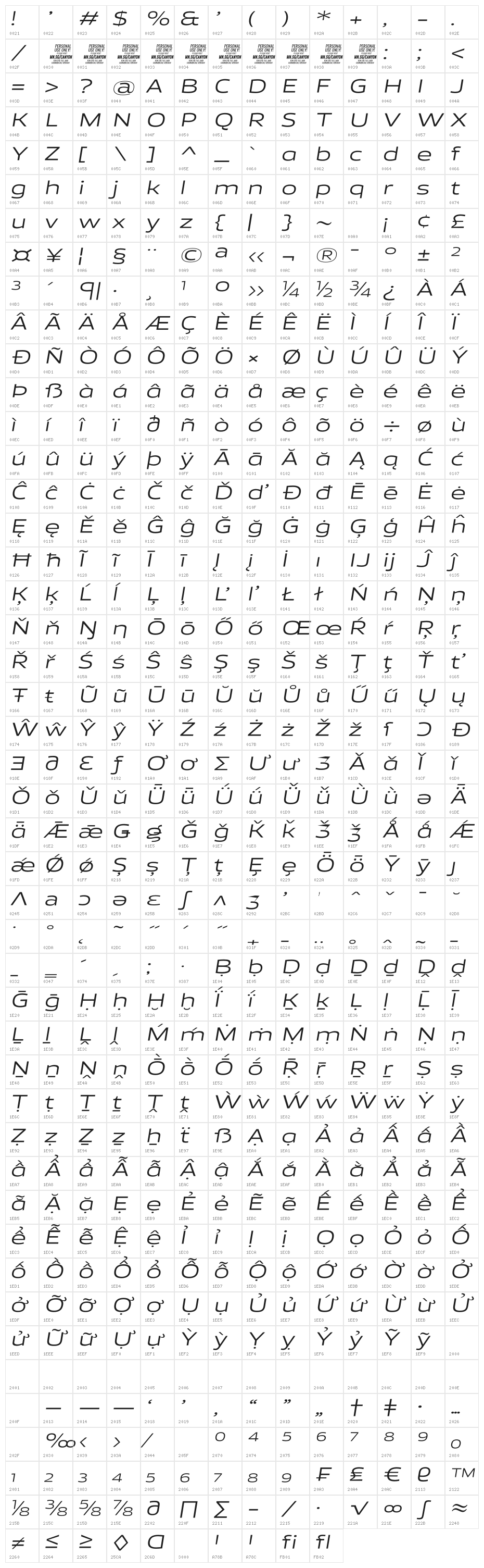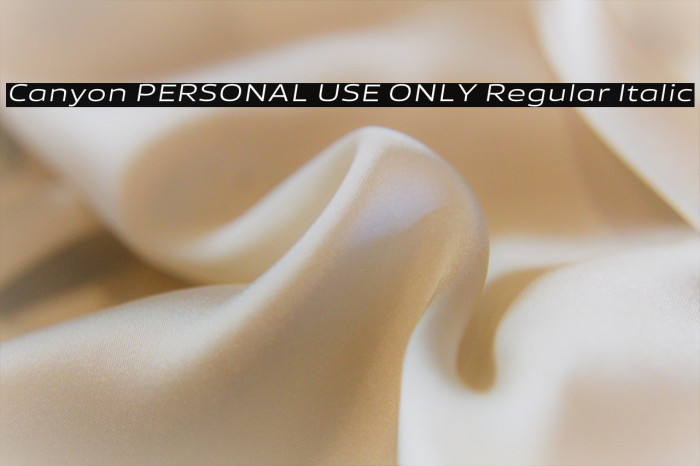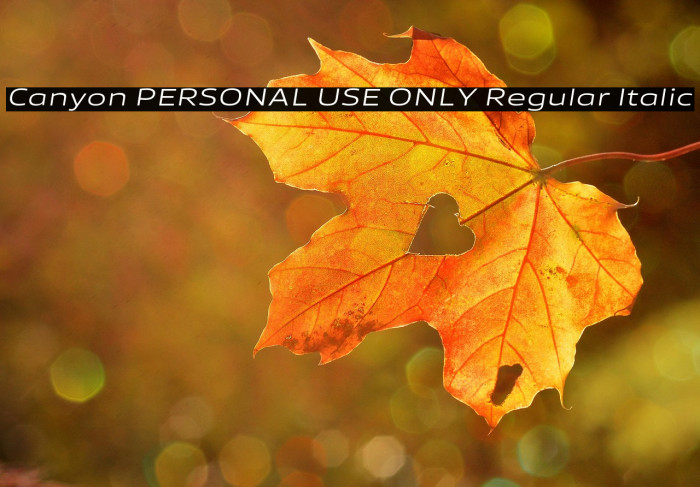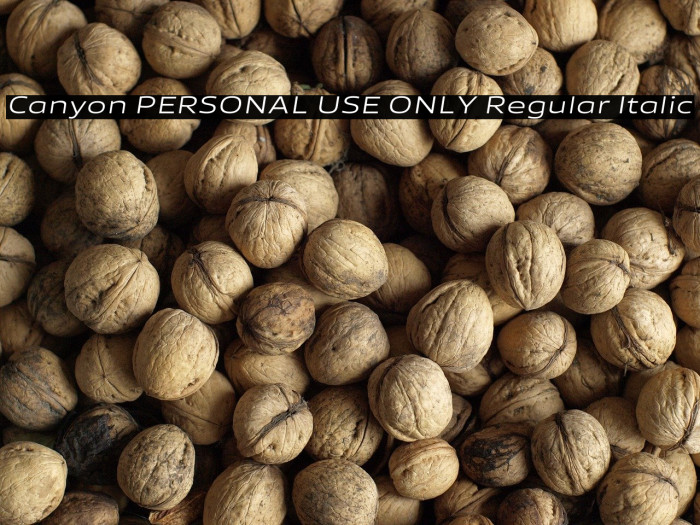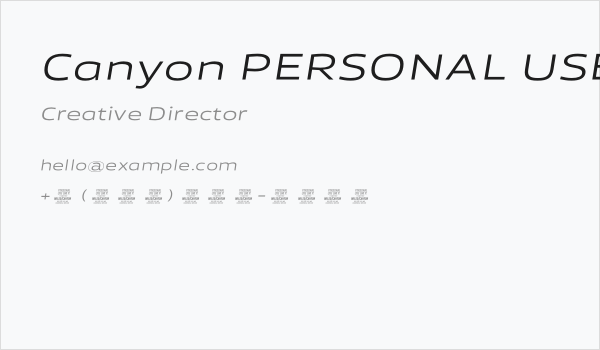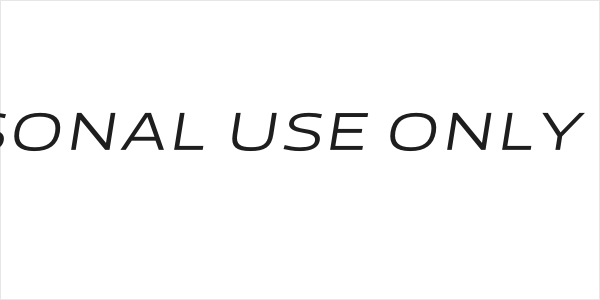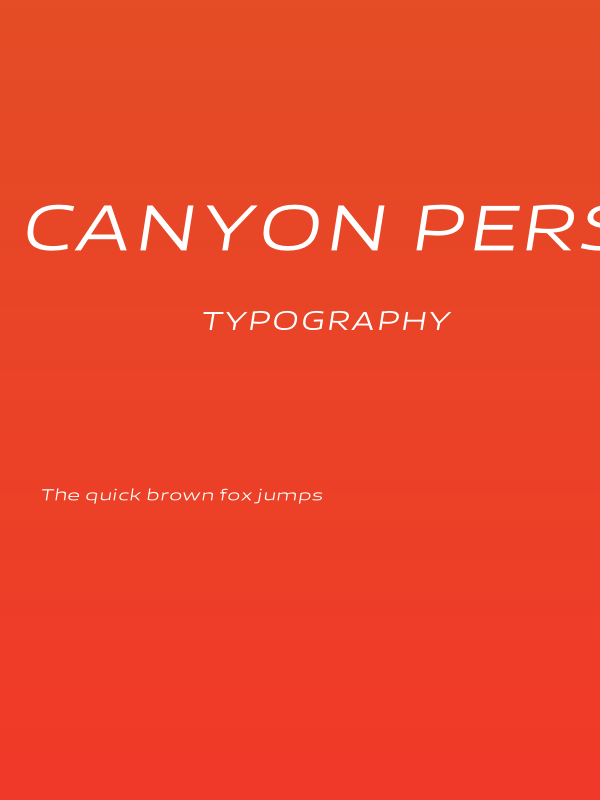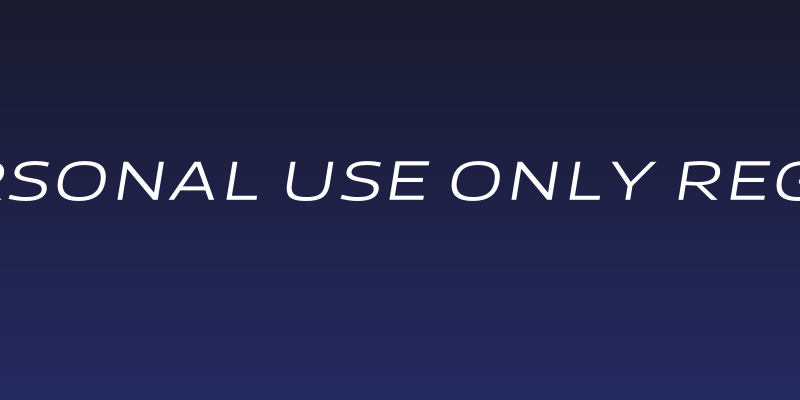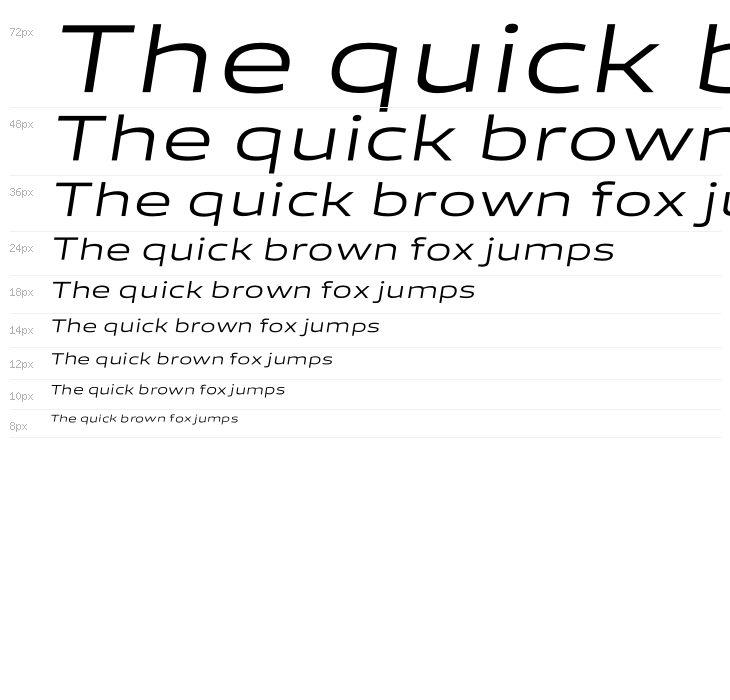
Canyon PERSONAL USE ONLY Regular Italic Font
Canyon PERSONAL USE ONLY Regular Italic Description
This font features a sleek, modern design with a slight italic slant, giving it a dynamic and forward-moving appearance. The characters are clean and streamlined, with a consistent stroke width that maintains a sense of uniformity and balance. The uppercase and lowercase letters are well-proportioned, with a subtle elegance that makes them suitable for a variety of applications. The numerals and special characters are designed to match the overall aesthetic, ensuring a cohesive look across all text elements. The font's style is versatile, making it ideal for both digital and print media.
| Proposed Projects | Ideal for branding, advertising, and editorial design projects where a modern and elegant touch is desired. |